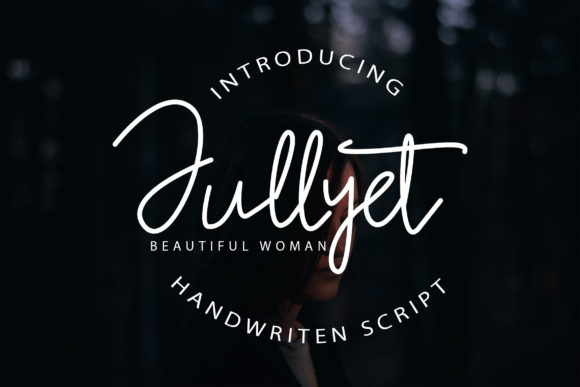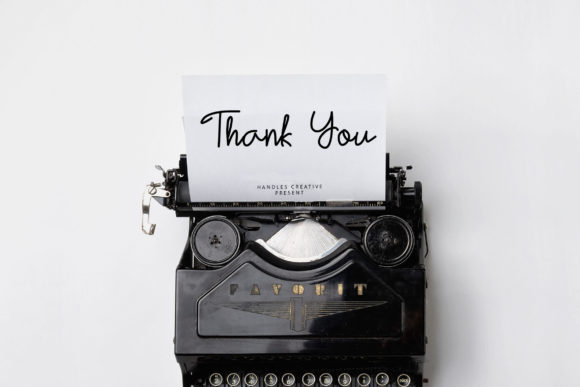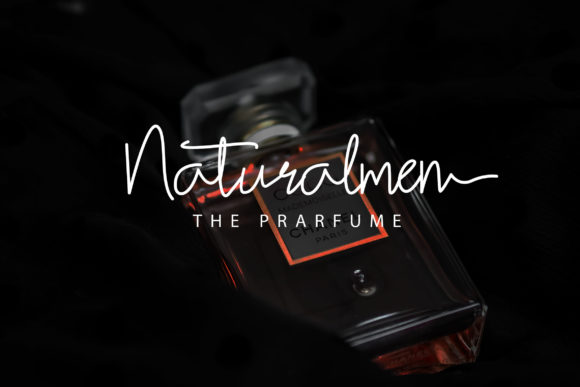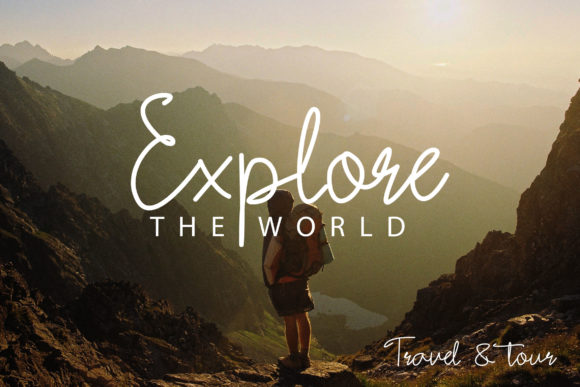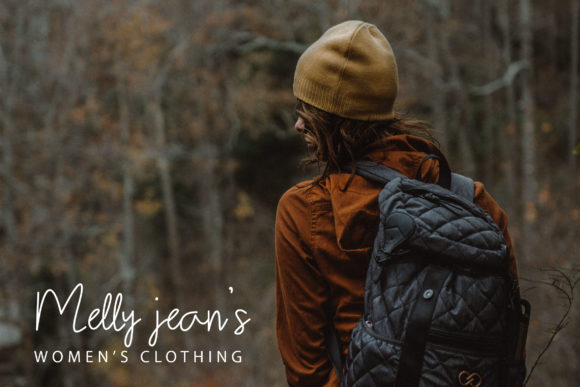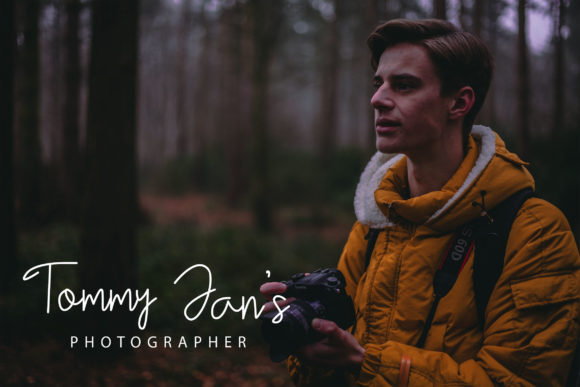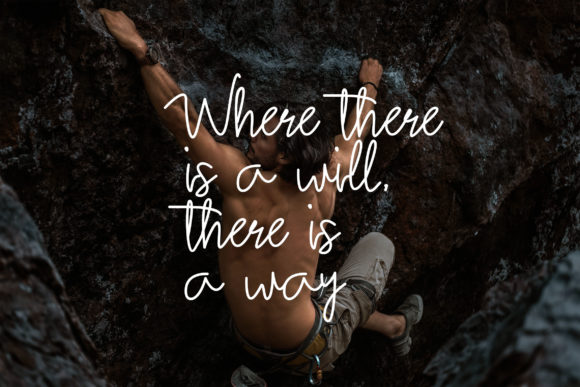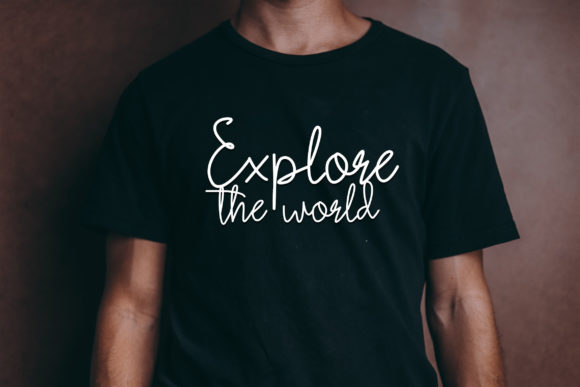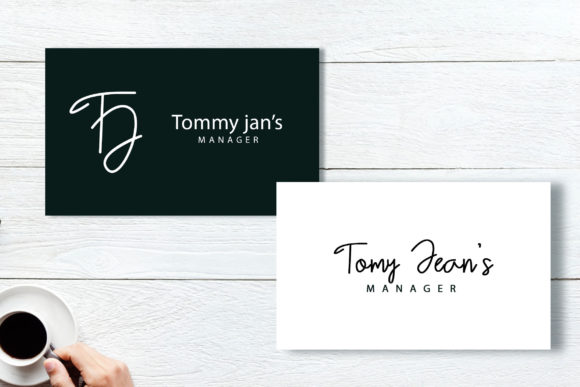
Jullyet Font
About Jullyet Font
Jullyet is a thin and cursive handwritten font. This gentle font will look gorgeous on a variety of design ideas. It will add a joyful and romantic touch to each of your projects!